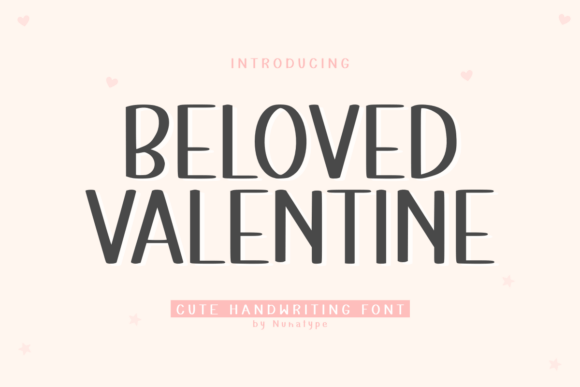
The Beloved Valentine Font: A Perfect Blend of Cute and Contemporary
I still remember the design project that led me to fall in love with the Beloved Valentine font. I was working on a branding project for a new lifestyle brand, and I was struggling to find the perfect font that would convey both playfulness and sophistication. The client wanted a font that would appeal to a young adult audience while still exuding a sense of maturity and elegance. After hours of searching, I stumbled upon Beloved Valentine, and it was love at first sight! ✨
- ✨ Elegantly rounded letters that balance playfulness with maturity
- ✅ Clean lines and legible structure for a high-quality, polished look
- ✅ Incredibly versatile for various design projects, from branding to packaging
- ✅ A perfect blend of cute and contemporary, making it suitable for a wide range of audiences
While Beloved Valentine is an amazing font, there are a few things to keep in mind: 🤔
- ⚠️ Some letters may appear a bit condensed, which can make it challenging to use for very short headlines or titles
- ⚠️ Limited availability of stylistic alternates, which may limit creative experimentation
Beloved Valentine was designed with the intention of creating a font that would balance playfulness with maturity. The designer aimed to create a font that would be suitable for a wide range of design projects, from branding and packaging to wedding collateral and social media graphics. The result is a font that is both elegant and approachable, making it perfect for designers who want to add a touch of sophistication to their work.
Q: What makes Beloved Valentine unique?
A: Beloved Valentine offers a unique blend of playfulness and sophistication, making it suitable for a wide range of design projects.
Q: Is Beloved Valentine suitable for body text?
A: While Beloved Valentine is a beautiful font, it’s best suited for headlines and titles. For body text, you may want to consider a font with a more traditional serif or sans-serif design.